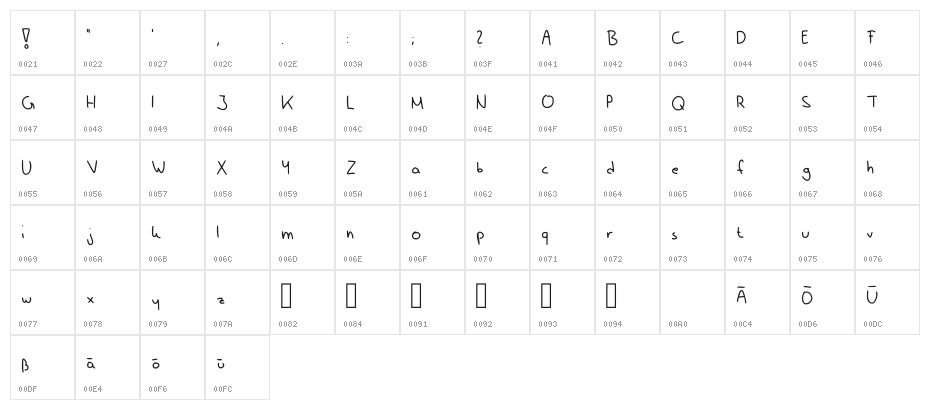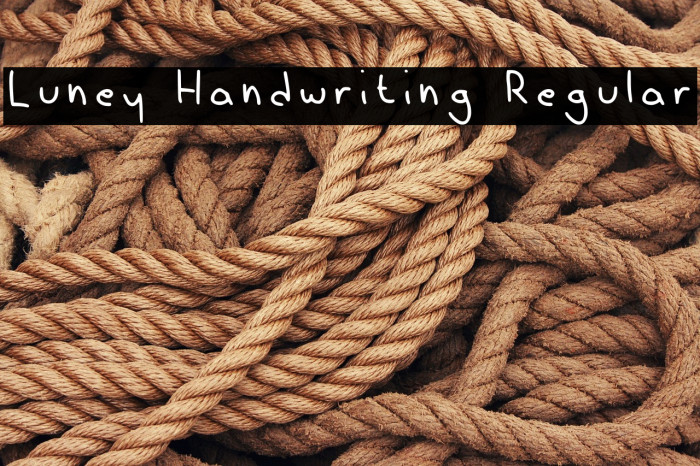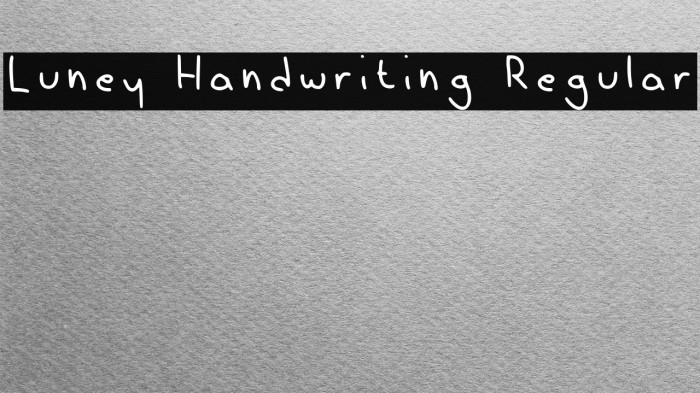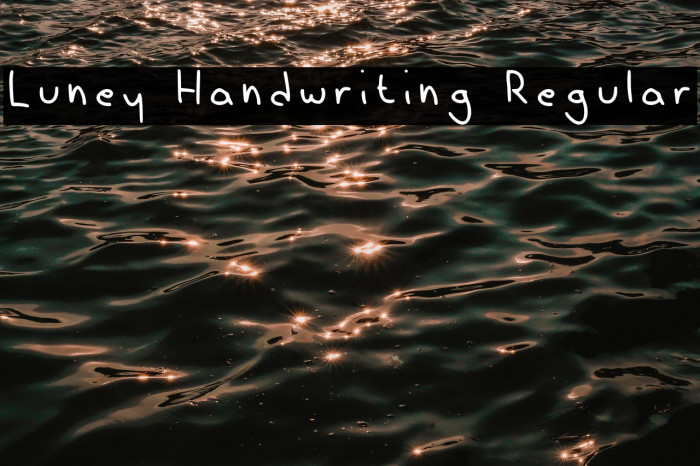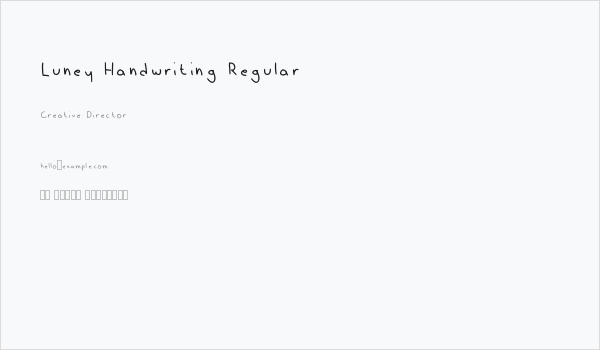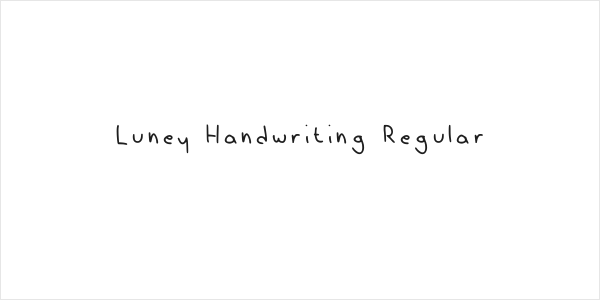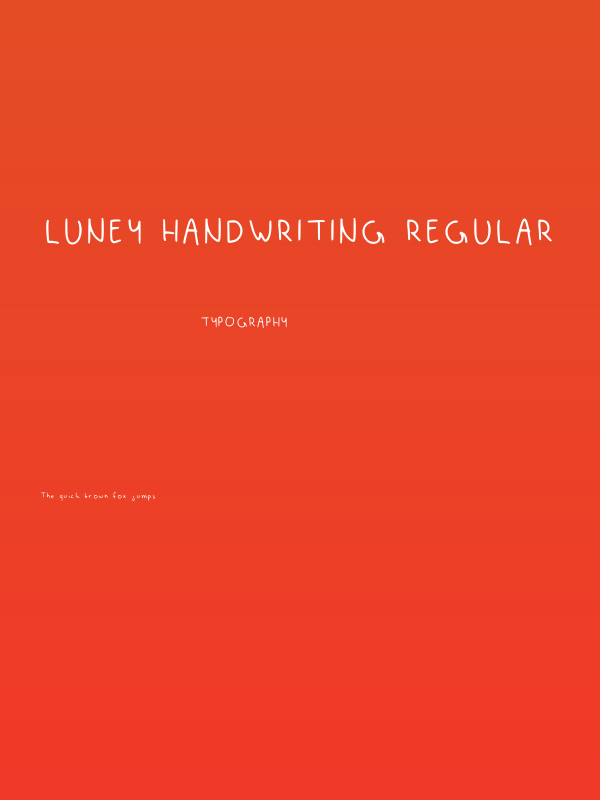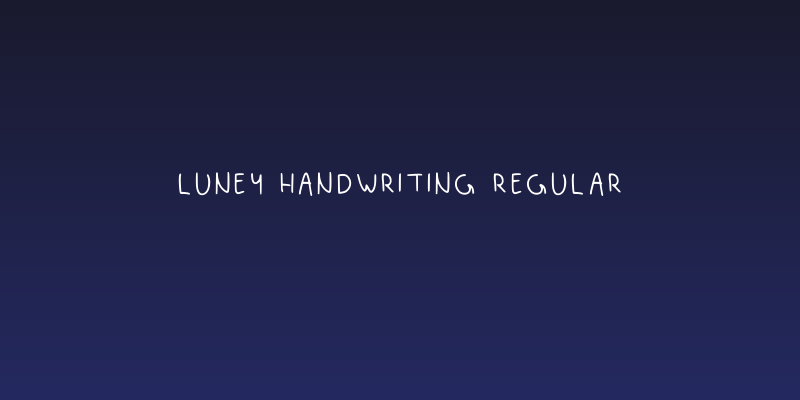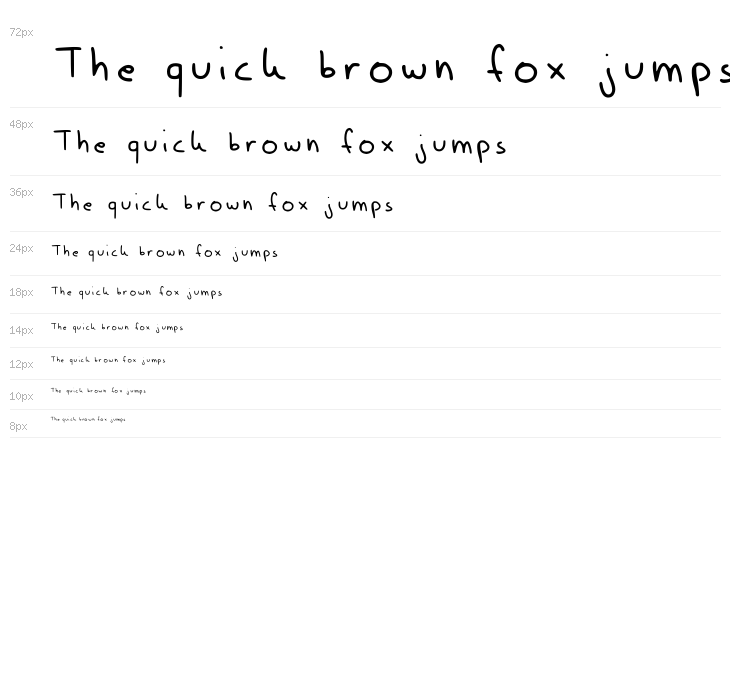
Luney Handwriting Regular Font
Luney Handwriting Regular Description
This font exudes a playful and casual handwritten style, characterized by its irregular strokes and slightly uneven baseline. The letters have a whimsical and informal appearance, making them feel approachable and friendly. The uppercase and lowercase letters maintain a consistent style, with rounded edges and a slight tilt that adds to the handwritten feel. The numbers and special characters follow the same playful design, ensuring a cohesive look across all text. This font is perfect for projects that require a personal touch or a relaxed, informal vibe.
| Use Case | Logos, Headlines, Informal Text |
| Proposed Projects | Ideal for greeting cards, personal notes, children's books, and casual branding projects. |